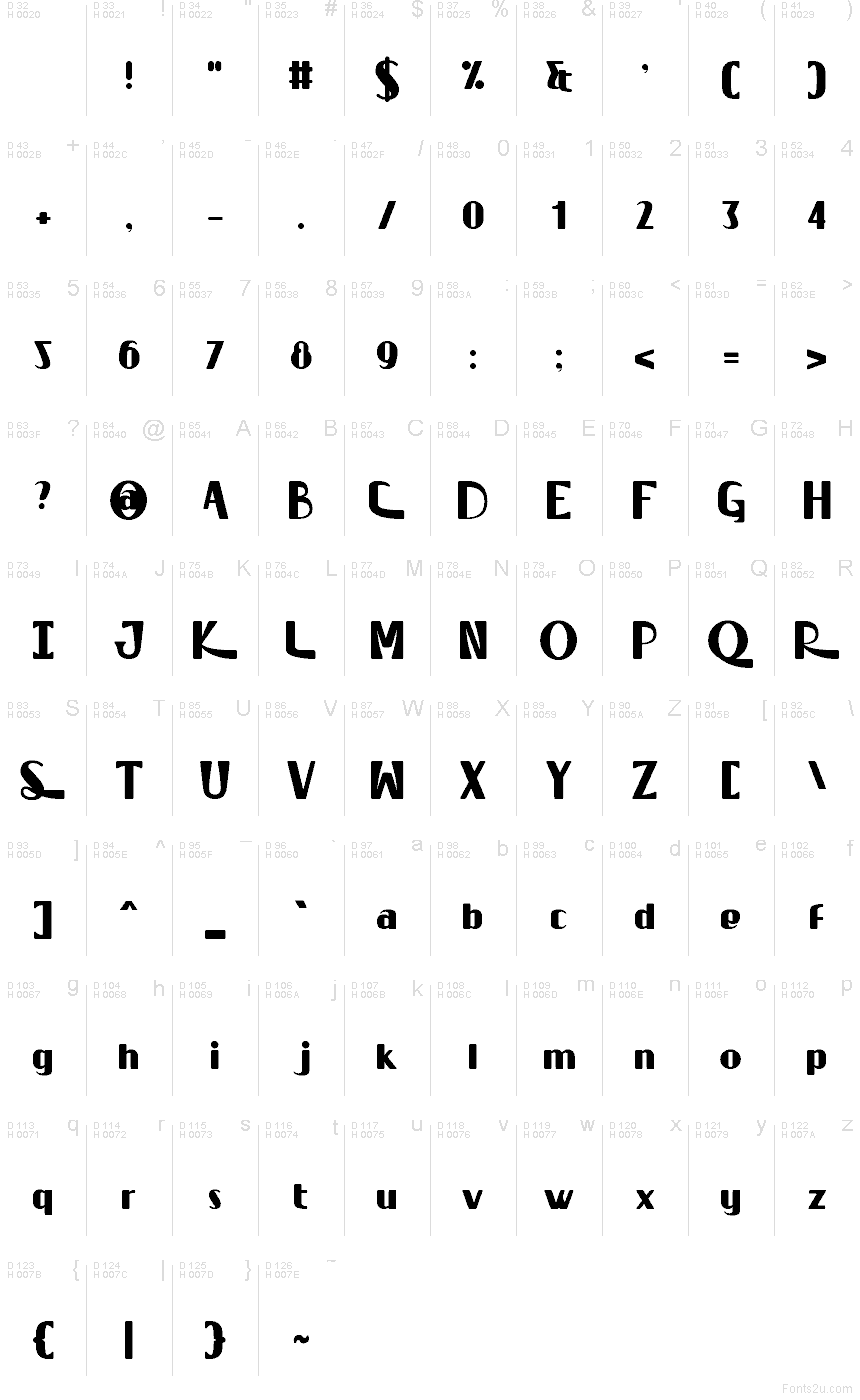
Sissy That Font font by Allison J. James of Chequered Ink is a free retro decorative font with big, groovy shapes and a cheeky, stage-ready swagger. The letters feel like they were cut from glossy vinyl-thick, smooth, and bouncy-with dramatic curves and snug spacing that reads like a bold marquee.
Using Sissy That Font, you’ll get instant attitude on drag-night flyers, party invites, merch slogans, sticker packs, social posts, podcast covers, and boutique signage. This free font shines when you keep the wording short and let the rhythm do the talking; pair it with a clean geometric sans for dates, details, and fine print.